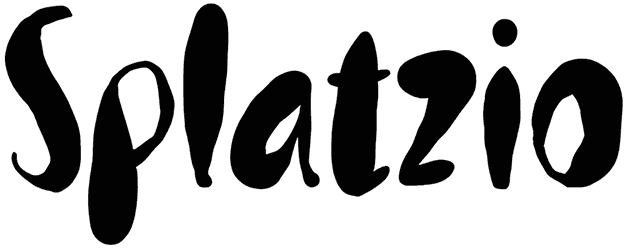
Splatzio Font
Do you really want to keep things per ush when you actually have the chance to spice things up with disproportions in your lettering style? Splatzio is well aware of how to boost your typography with its playful combination of fat and thin elements in its structure.
The fact that it’s not so perfect is exactly the reason you should add this tropical font to your toolkit, and then to your hats, chips packaging, party posters, gouache branding, and others.